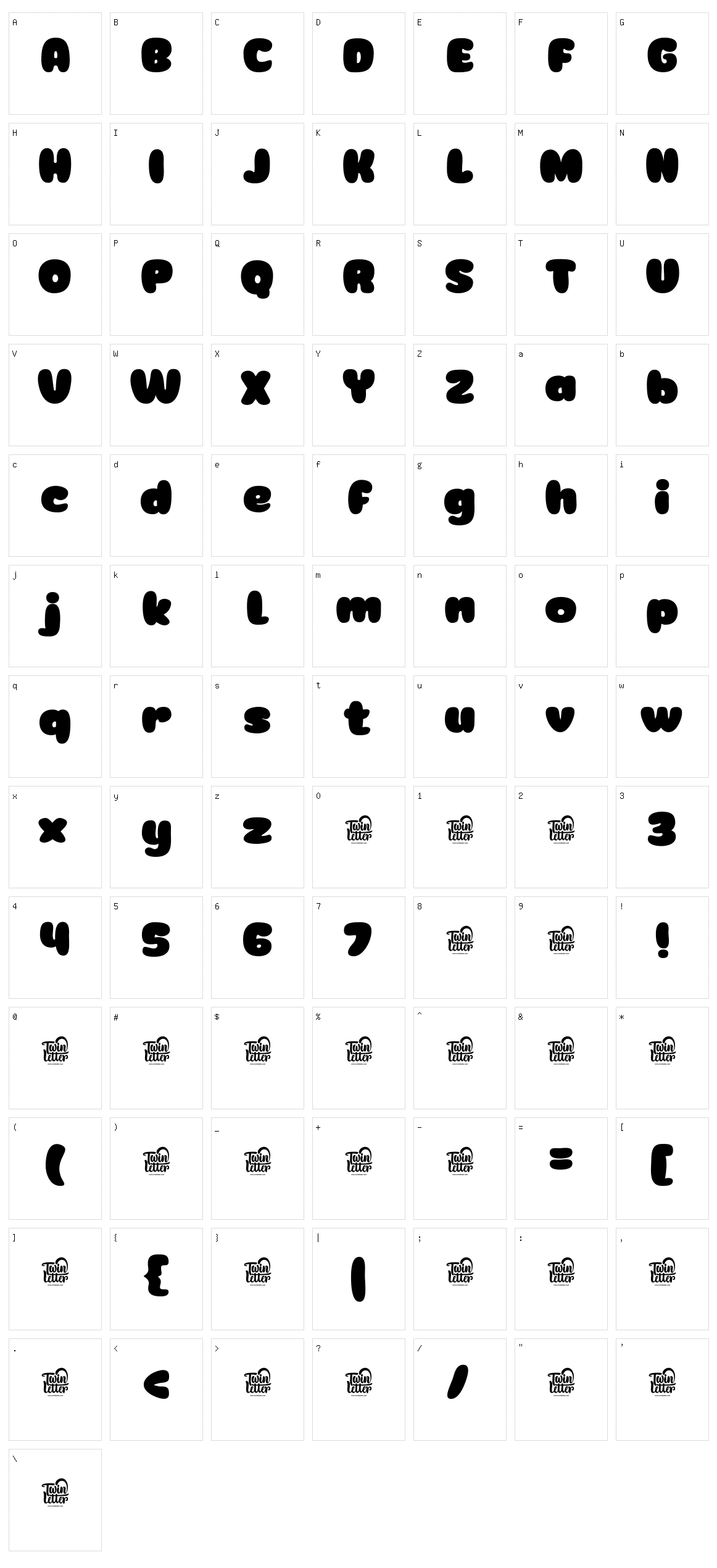
The free font Heycaz is carefully designed by twinletter, showcasing a thoughtful balance of creativity and usability and falls under the Cartoon font style. When you download the ZIP file, it contains only 10.34 KB of font files, making it lightweight and quick to download. Please review the license details below to understand permitted usage and distribution rights. If license information is not available, we recommend using this font for personal projects only or contacting the author directly for commercial usage permissions.